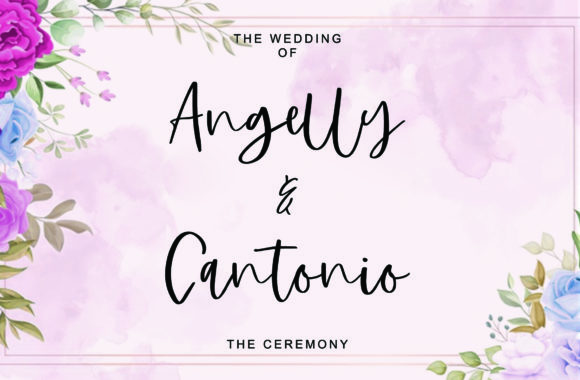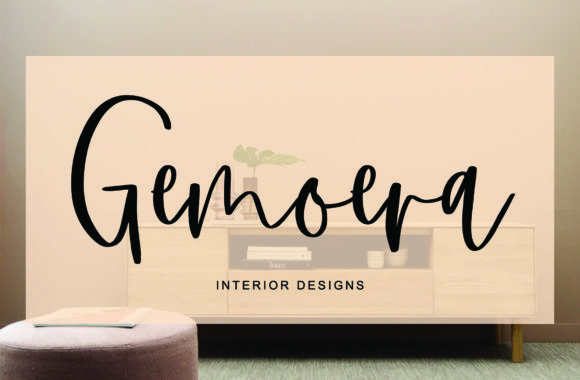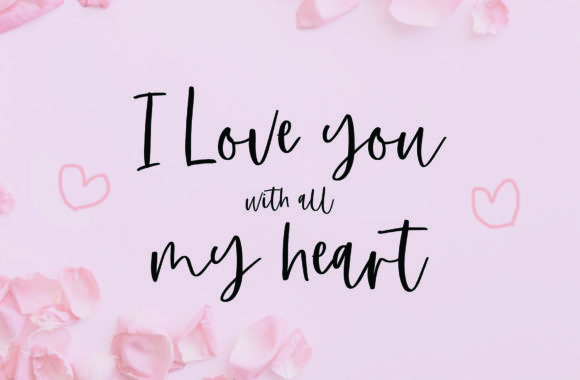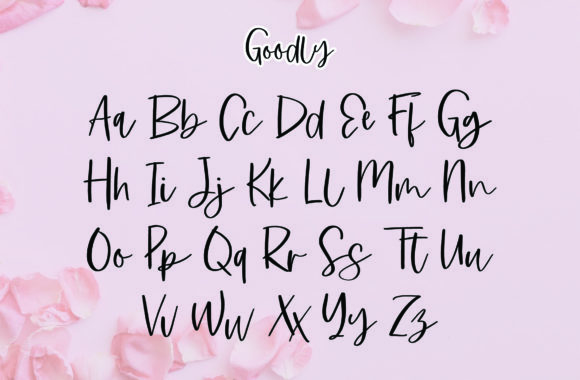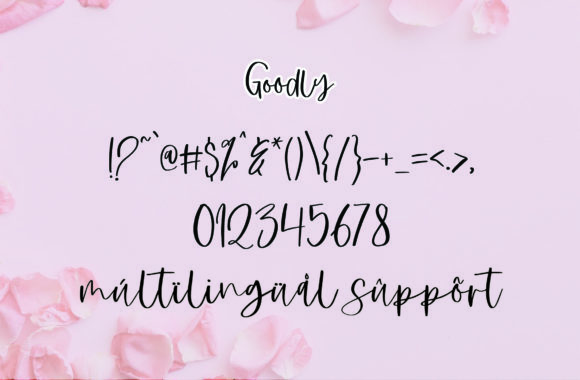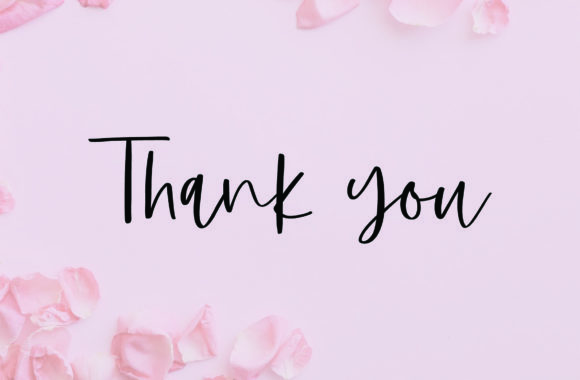
Introducing Goodly Font: The Ultimate Choice for Creative Expression
Are you tired of using the same old fonts for your creative projects? Look no further than Goodly Font, a laid-back script font that is sure to add a touch of personality to your designs. With its trendy, playful characters that seem to dance along the baseline, Goodly Font is the perfect choice for designers and crafters looking to make their work stand out.
The Unique Features of Goodly Font
Goodly Font is a script font like no other. Its unique features include:
- Trendy and Playful Characters: Goodly Font features characters that are designed to be fun and playful, making it perfect for creative projects that require a touch of personality.
- Dancing Baseline: The characters in Goodly Font seem to dance along the baseline, giving it a unique and eye-catching appearance.
- Laid-Back Vibe: Goodly Font has a laid-back vibe that is perfect for designs that require a relaxed and casual feel.
Why Choose Goodly Font?
There are many reasons why Goodly Font is the perfect choice for designers and crafters. Here are just a few:
- Perfect for Creative Projects: Goodly Font is designed to add a touch of personality to your creative projects, making it perfect for designers and crafters who want to make their work stand out.
- Easy to Read: Despite its playful nature, Goodly Font is easy to read, making it perfect for use in a variety of applications, from signage to digital media.
- Versatile: Goodly Font can be used in a variety of contexts, from formal to informal, making it a versatile addition to any designer’s toolkit.
How to Use Goodly Font in Your Designs
Goodly Font is easy to use in a variety of design applications. Here are a few tips for incorporating it into your work:
- Pair it with Other Fonts: Goodly Font pairs well with a variety of other fonts, making it easy to create visually interesting combinations.
- Use it for Headings and Titles: Goodly Font is perfect for use in headings and titles, where its playful nature can really shine.
- Experiment with Different Colors and Textures: Goodly Font looks great in a variety of colors and textures, so don’t be afraid to experiment and find the look that works best for your design.
Goodly Font in the World of Crafting
Goodly Font is not just for designers – it’s also a great choice for crafters who want to add a personal touch to their work. Here are a few ways that crafters can use Goodly Font:
- Journaling and Scrapbooking: Goodly Font is perfect for use in journals and scrapbooks, where its playful nature can add a personal touch.
- Crafting and DIY Projects: Goodly Font can be used in a variety of crafting and DIY projects, from signs to cards to gift tags.
- Paper Crafting: Goodly Font is a great choice for paper crafters who want to add a touch of personality to their work.
Goodly Font is a unique and versatile script font that is perfect for designers and crafters who want to add a touch of personality to their work. With its trendy, playful characters and laid-back vibe, Goodly Font is sure to make your creative projects stand out. So why wait? Add Goodly Font to your toolkit today and see the difference it can make!